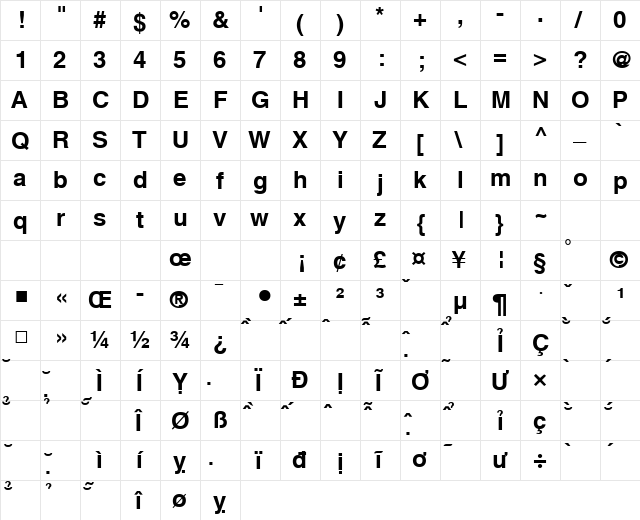
VNI Helve Bold
Design Context for VNI Helve Typeface
VNI Helve offers clean, dependable letterforms without strong stylistic allegiance, making it a practical choice for designers who need flexibility. Its bold stroke weight gives it real presence on the page.
Pro Tip: Use VNI Helve in both headline and body roles to test its range before committing to a single application.